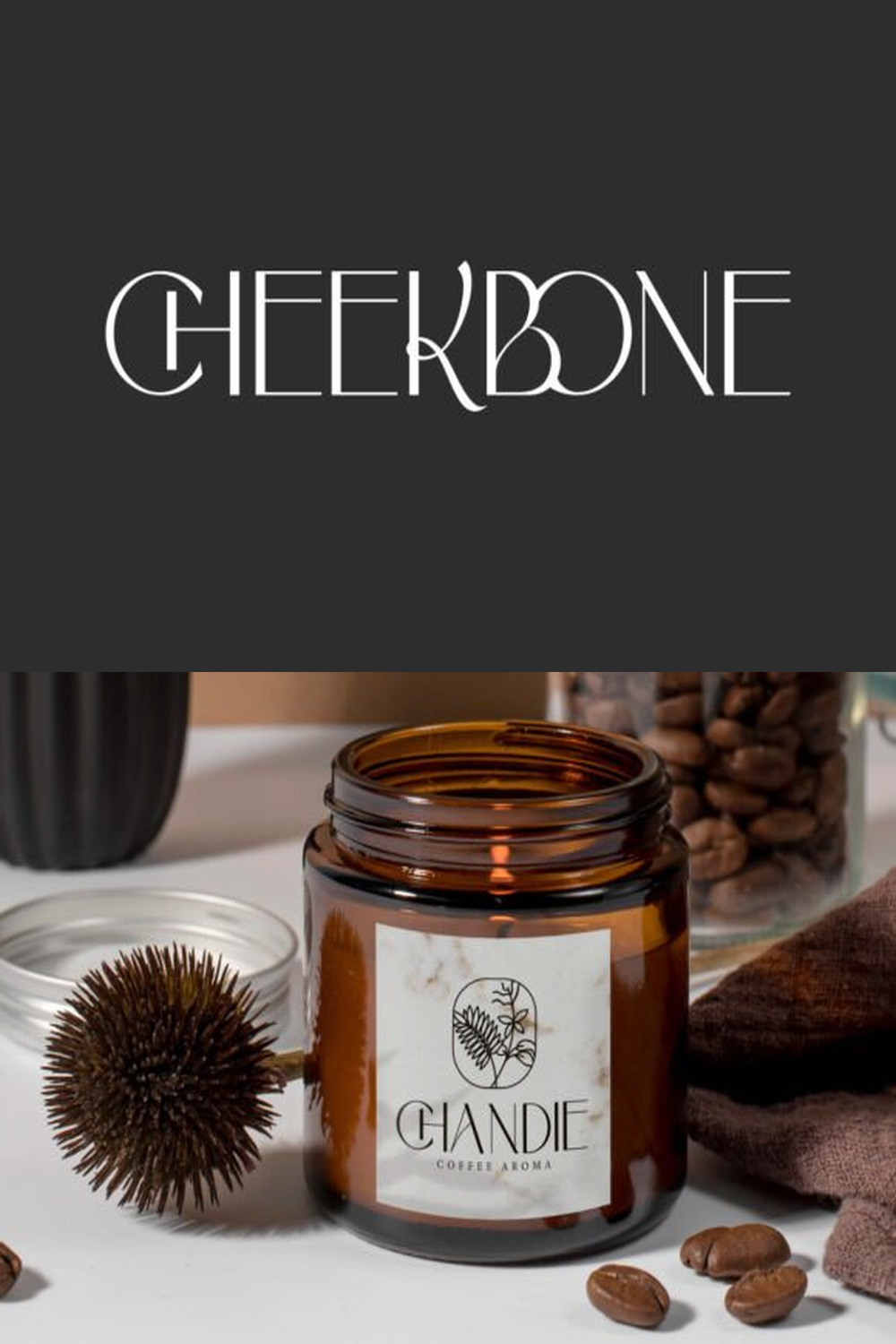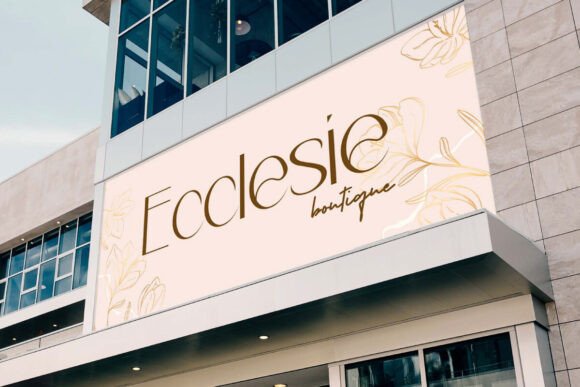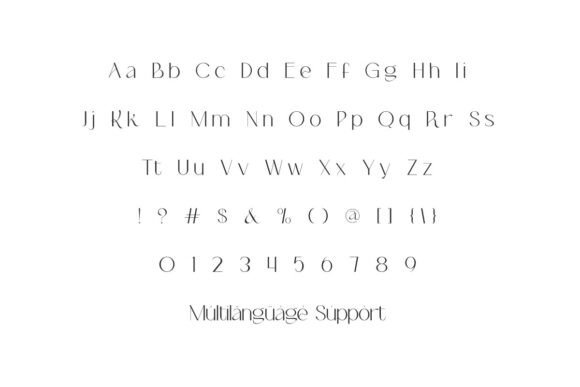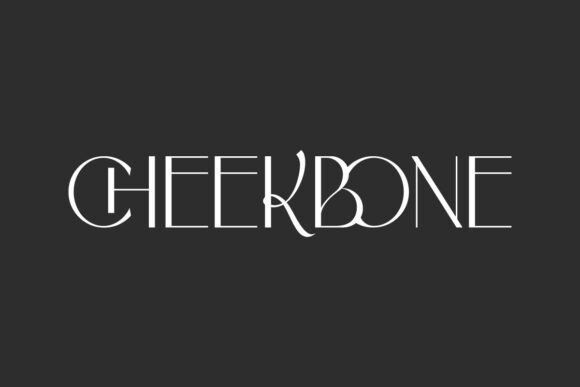
Cheekbone Font: Elegant Sans Serif Typography for Modern Branding
About the Cheekbone Font
The wait is over! The incredible Cheekbone Font is now available for your design toolkit. Cheekbone Font is an elegant sans serif display font with stunning ligature and glyphs designs. The thin lines of this font exude an expensive aura that dazzles the eyes of those who see it. It will be suitable for many industries, such as accessories and jewelry, event organizer, fashion, furniture, handicrafts, interior design, photography, printing, publishing, restaurant, spa and salon, etc.